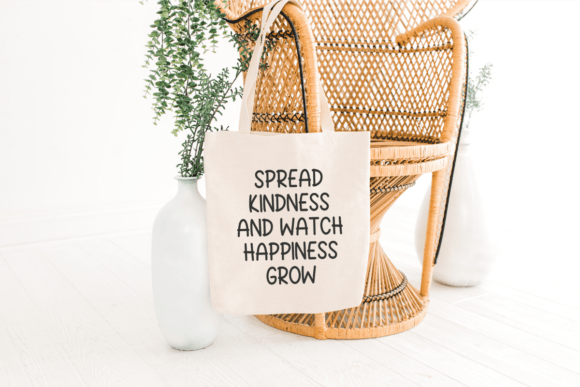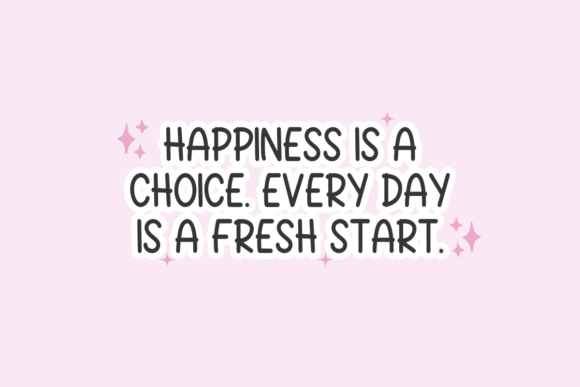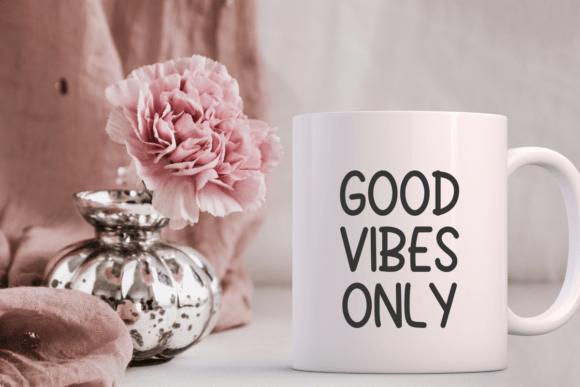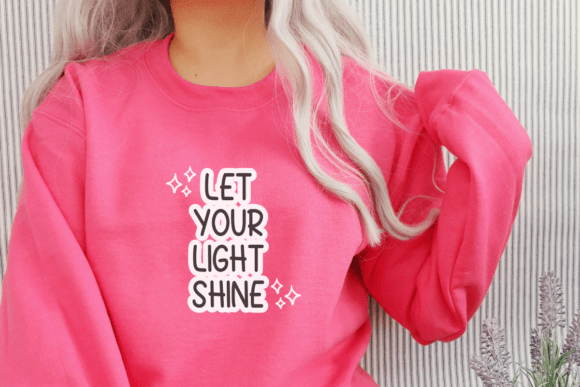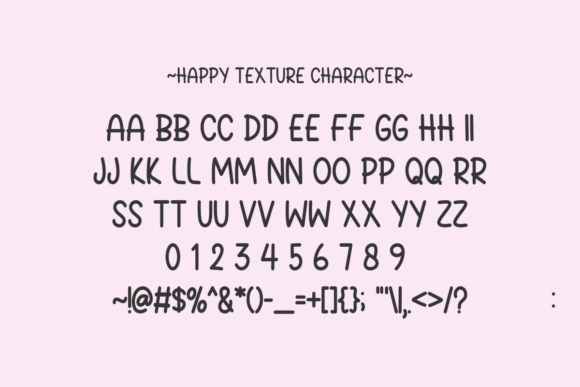
Introduction to Happy Texture Font
Happy Texture is a fun and playful handwritten font that’s perfect for crafts, planners, KDP, stickers, greeting cards, and more.
With its cute and friendly style, it works great for Cricut, sublimation, and creative DIY projects Ideal for crafters, designers, and makers.
Key Features of Happy Texture Font
Why Choose Happy Texture Font?
Happy Texture Font offers exceptional quality and versatility, making it a valuable addition to your design toolkit. Whether you’re creating for personal projects or commercial use, Happy Texture Font delivers professional results.